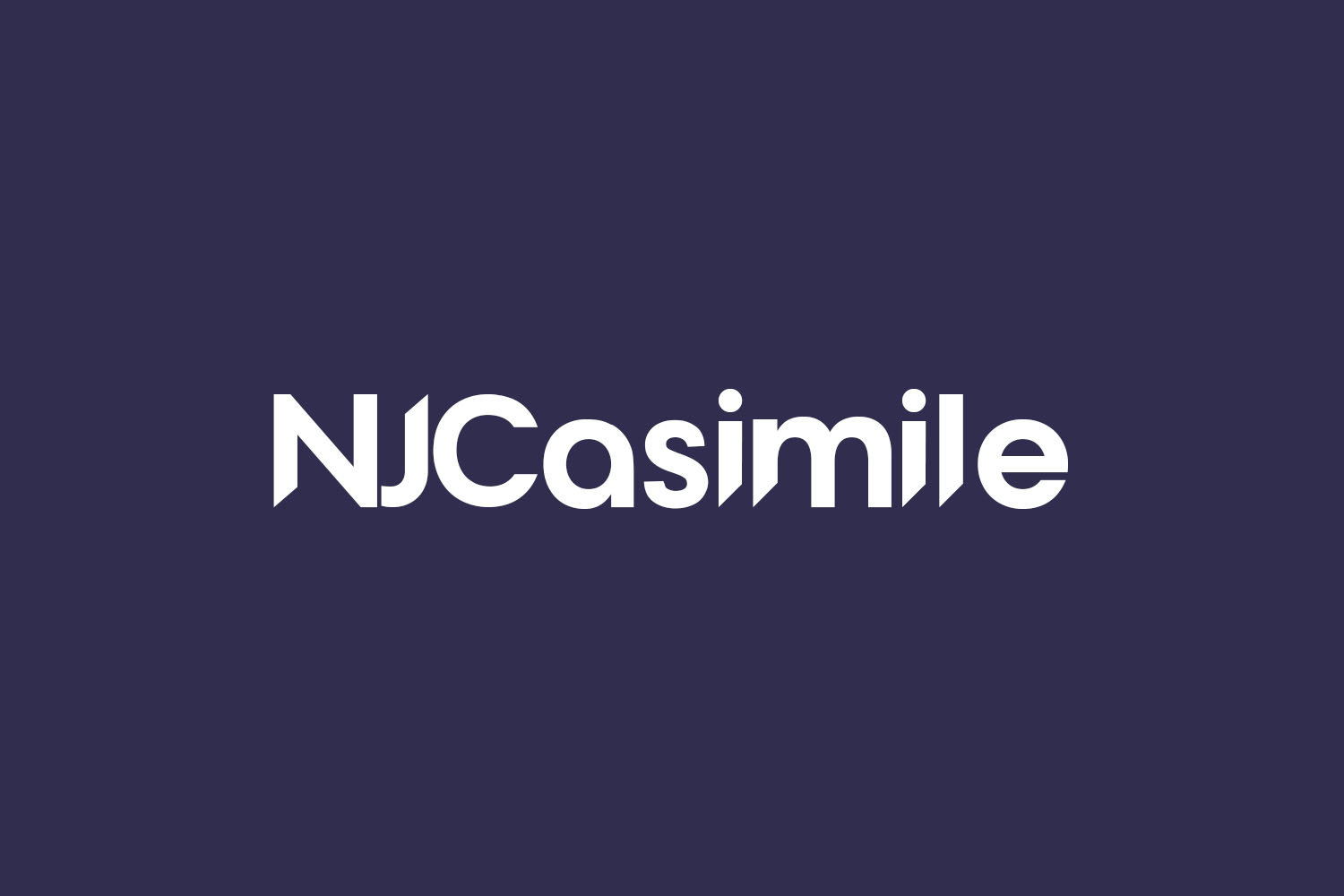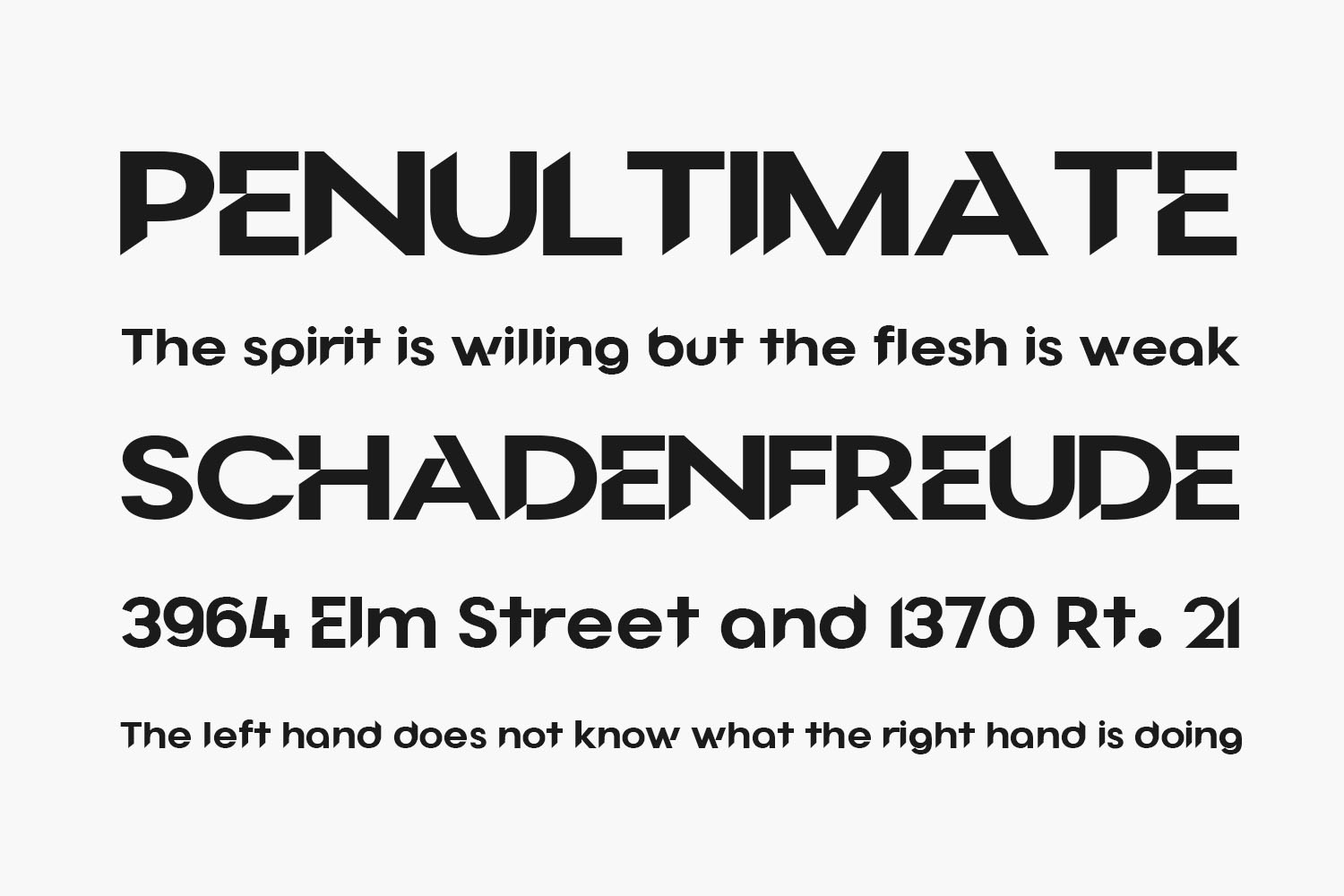
NJCasimile Free Font is a unique and elegant typeface that can add a touch of sophistication to any project. With its sleek and modern design, this font is perfect for creating logos, banners, posters, and more. NJCasimile Font is not only aesthetically pleasing, but it is also very versatile. It can be used for a wide range of applications, such as in web design, print materials, and even for personal use. This font is available for download on various font websites, and it is easy to install on your computer. So, if you are looking for a beautiful and functional font to enhance your design, NJCasimile Font is definitely worth considering. NJCasimile Free Font is free for personal use only. Please purchase the full version for commercial use.
Designed by Samanta Domson